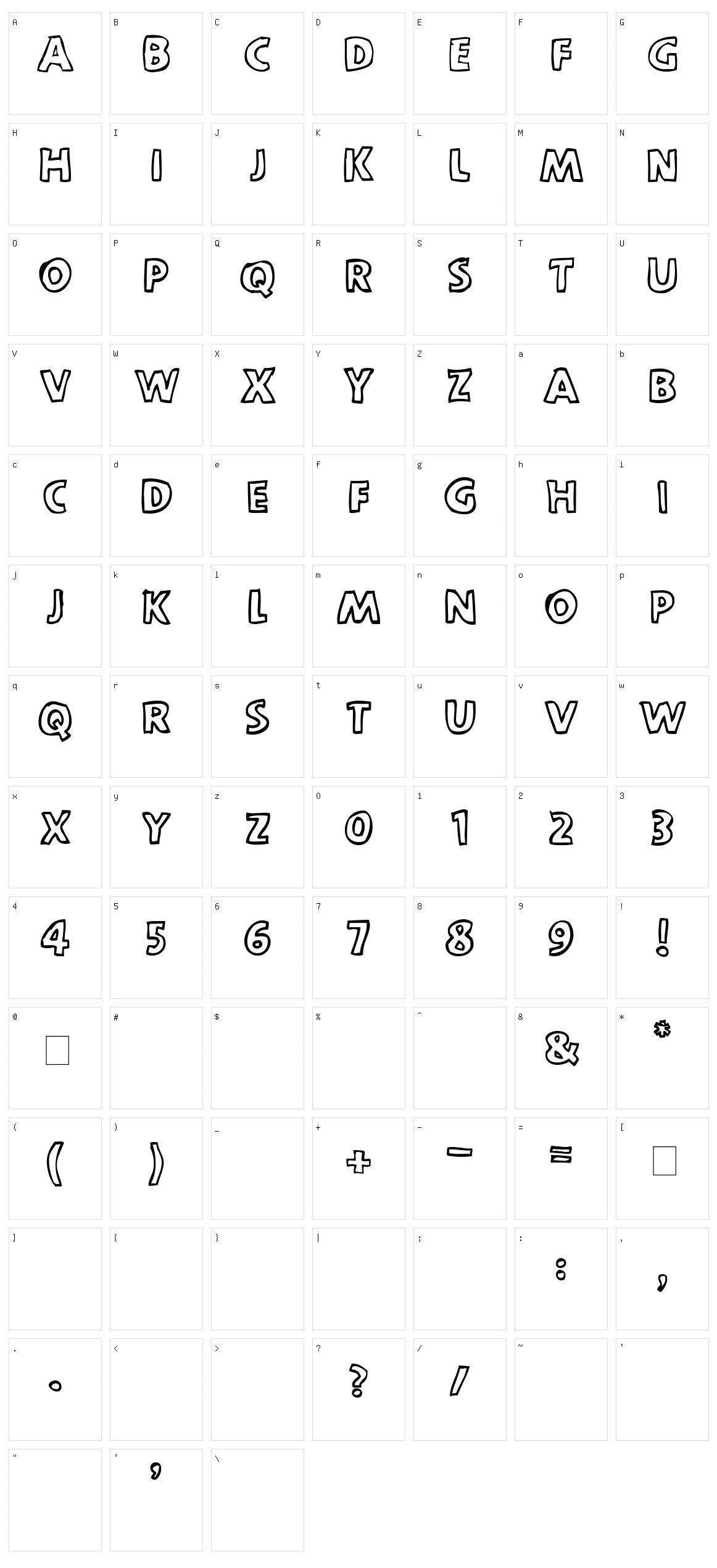
The free font Scootch Over Sans is carefully designed by Elling Lien, showcasing a thoughtful balance of creativity and usability and falls under the Cartoon font style. When you download the ZIP file, it contains only 34.41 KB of font files, making it lightweight and quick to download. Please review the license details below to understand permitted usage and distribution rights. If license information is not available, we recommend using this font for personal projects only or contacting the author directly for commercial usage permissions.